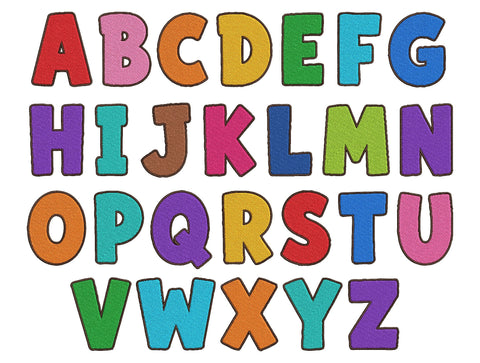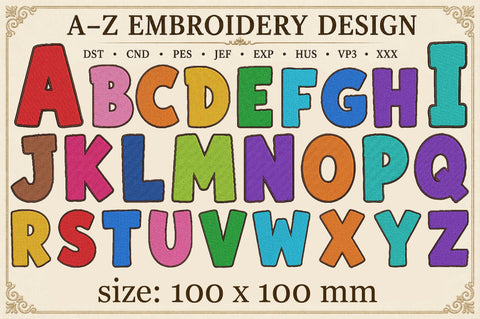
Add a bold and sporty touch to your embroidery projects with this Varsity Embroidery Alphabet Font. This classic uppercase alphabet features chunky, eye-catching letter shapes with a clean varsity-inspired style, making it perfect for personalized embroidery and custom lettering projects.
The collection includes A–Z uppercase letters plus punctuation symbols, designed for creating names, initials, monograms, team apparel, school projects, sportswear, jackets, bags, caps, towels, and other personalized embroidery creations.
A–Z uppercase alphabet
Varsity-inspired lettering style
Bold and chunky letter shapes
Sporty school-style appearance
Includes punctuation symbols